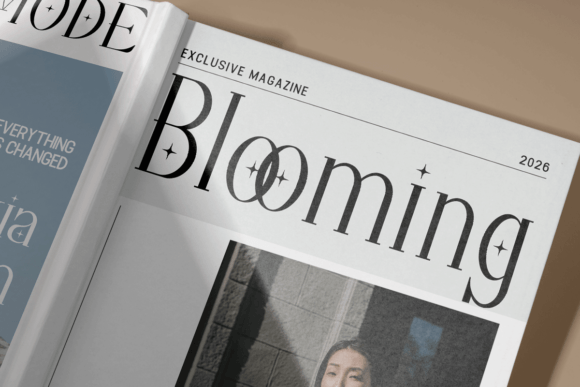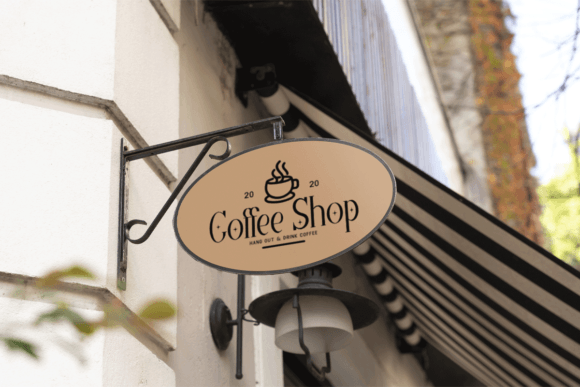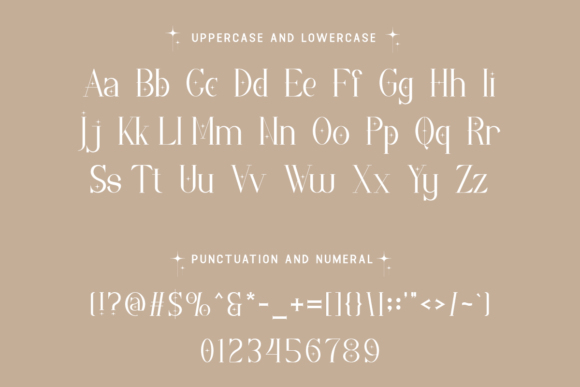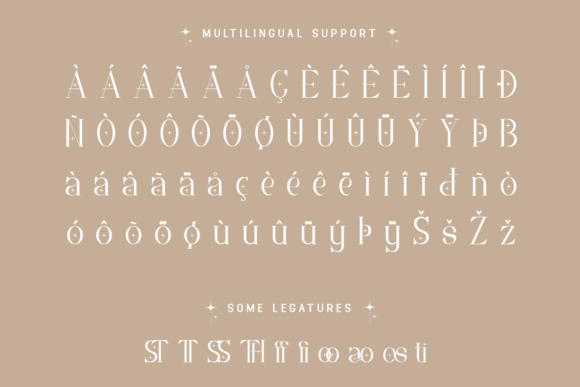
Introducing Caochella Serif Font: Elevate Your Designs with Elegance and Sophistication
In the world of typography, a font can make all the difference in the success of a design project. Whether you’re a seasoned designer or a crafty DIY enthusiast, finding the right typeface can be a daunting task. That’s why we’re excited to introduce Caochella Serif Font, a sophisticated and stylish typeface that blends classic serif elements with a contemporary twist.
A Perfect Blend of Classic and Modern
Caochella Serif Font is designed to bring a touch of elegance and sophistication to any project. With its distinct letterforms and balanced design, this font is perfect for creating luxurious branding, refined editorial layouts, and high-end packaging. The classic serif elements provide a sense of tradition and timelessness, while the modern twist adds a fresh and contemporary feel.
One of the standout features of Caochella Serif Font is its versatility. Whether you’re designing for fashion, weddings, or upscale brands, this font offers a level of sophistication and elegance that’s hard to match. The font’s refined lines and classic proportions make it perfect for creating elegant logos, chic branding, and luxurious packaging.
Caochella Serif Font is PUA encoded, which means you can access all of the cute glyphs and swashes with ease. This makes it easy to add a personal touch to your designs and take them to the next level. With PUA encoding, you can access a wide range of characters, including ligatures, stylistic alternates, and swashes, giving you endless creative possibilities.
Caochella Serif Font is perfect for designers and crafters who want to add a touch of sophistication to their work. Whether you’re creating branding materials, editorial layouts, or packaging, this font offers a level of elegance and refinement that’s hard to match. With its ease of use and versatility, Caochella Serif Font is an excellent choice for anyone looking to elevate their designs.
Key Features of Caochella Serif Font
- Sophisticated and stylish typeface: Caochella Serif Font blends classic serif elements with a contemporary twist, making it perfect for creating elegant and refined designs.
- Versatile and timeless: This font offers a level of versatility and timelessness that’s hard to match, making it perfect for a wide range of design projects.
- PUA encoded: Caochella Serif Font is PUA encoded, making it easy to access a wide range of characters, including ligatures, stylistic alternates, and swashes.
- Perfect for designers and crafters: Whether you’re a seasoned designer or a crafty DIY enthusiast, Caochella Serif Font is an excellent choice for anyone looking to add a touch of sophistication to their work.
In conclusion, Caochella Serif Font is a sophisticated and stylish typeface that offers a level of elegance and refinement that’s hard to match. With its classic serif elements, contemporary twist, and PUA encoding, this font is perfect for designers and crafters who want to elevate their designs. Whether you’re creating branding materials, editorial layouts, or packaging, Caochella Serif Font is an excellent choice for anyone looking to add a touch of sophistication to their work.